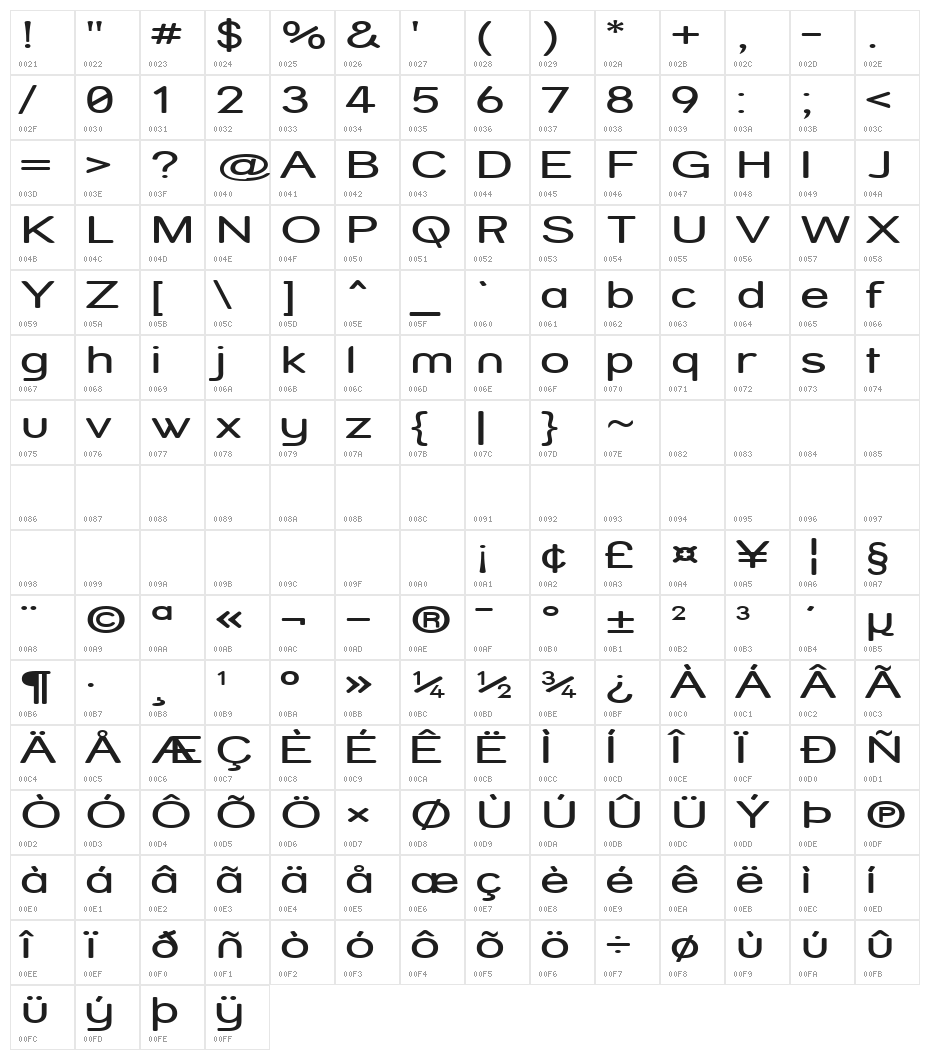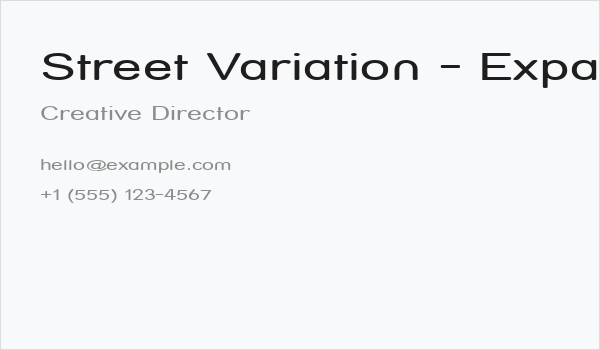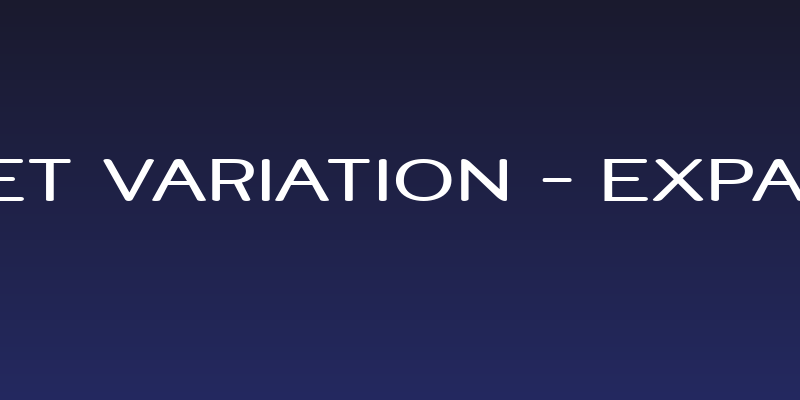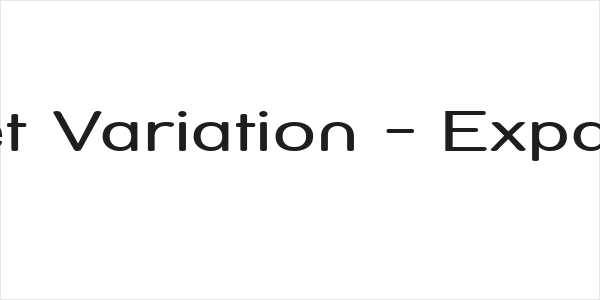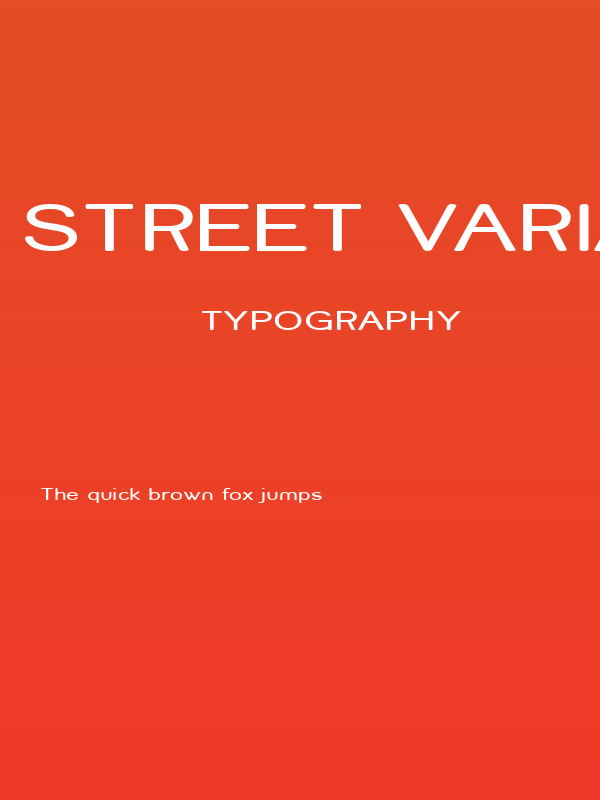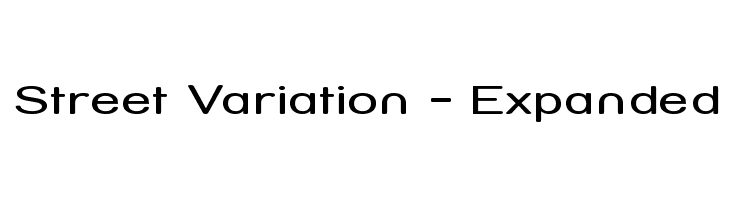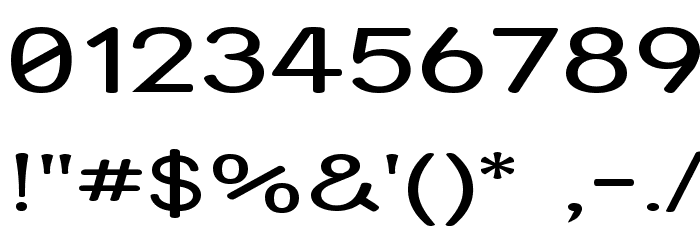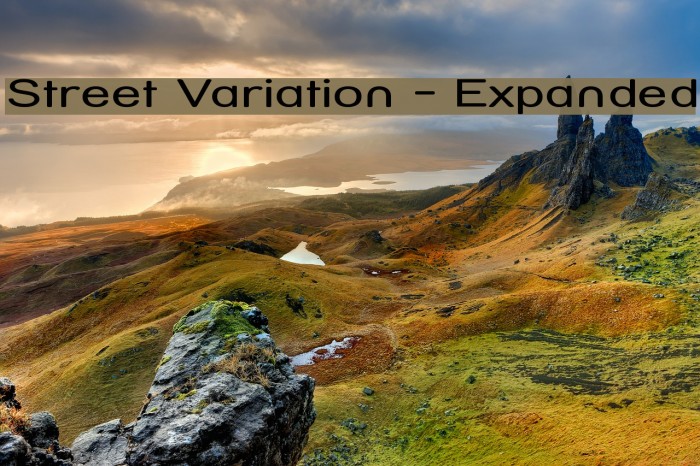
Street Variation - Expanded Font
✎ Sans Serif
Street Variation - Expanded Description
This font features a clean and modern sans-serif style with a uniform stroke width, giving it a sleek and contemporary appearance. The characters are well-proportioned and maintain a consistent height, contributing to its readability. The rounded edges of the letters add a touch of softness, while the expanded width provides a spacious and open feel. The numerals are clear and distinct, matching the overall aesthetic of the alphabet. Special characters are well-integrated, maintaining the font's cohesive look. This font is versatile, suitable for both digital and print media, and can be used effectively in various design contexts.
| Categories | Sans Serif |
| Width | Expanded |
| Use Case | Headlines, Body text, Logos |
| Proposed Projects | Ideal for branding, advertising, web design, and signage projects. |